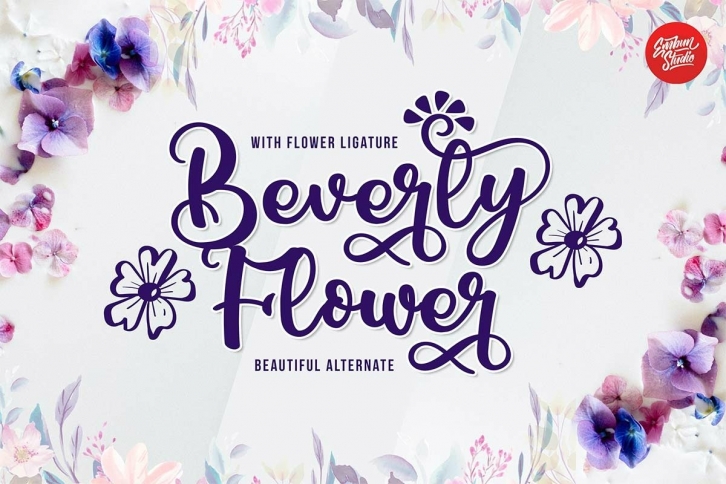
Beverly Flower is a trendy and unique font with an authentic style. It was designed by rezkistore and it's a great choice for creative people who need such a font. It was released on November 9, 2021 and the file size is 4.44 MB. Beverly Flower will add an organic vibe to any design idea!